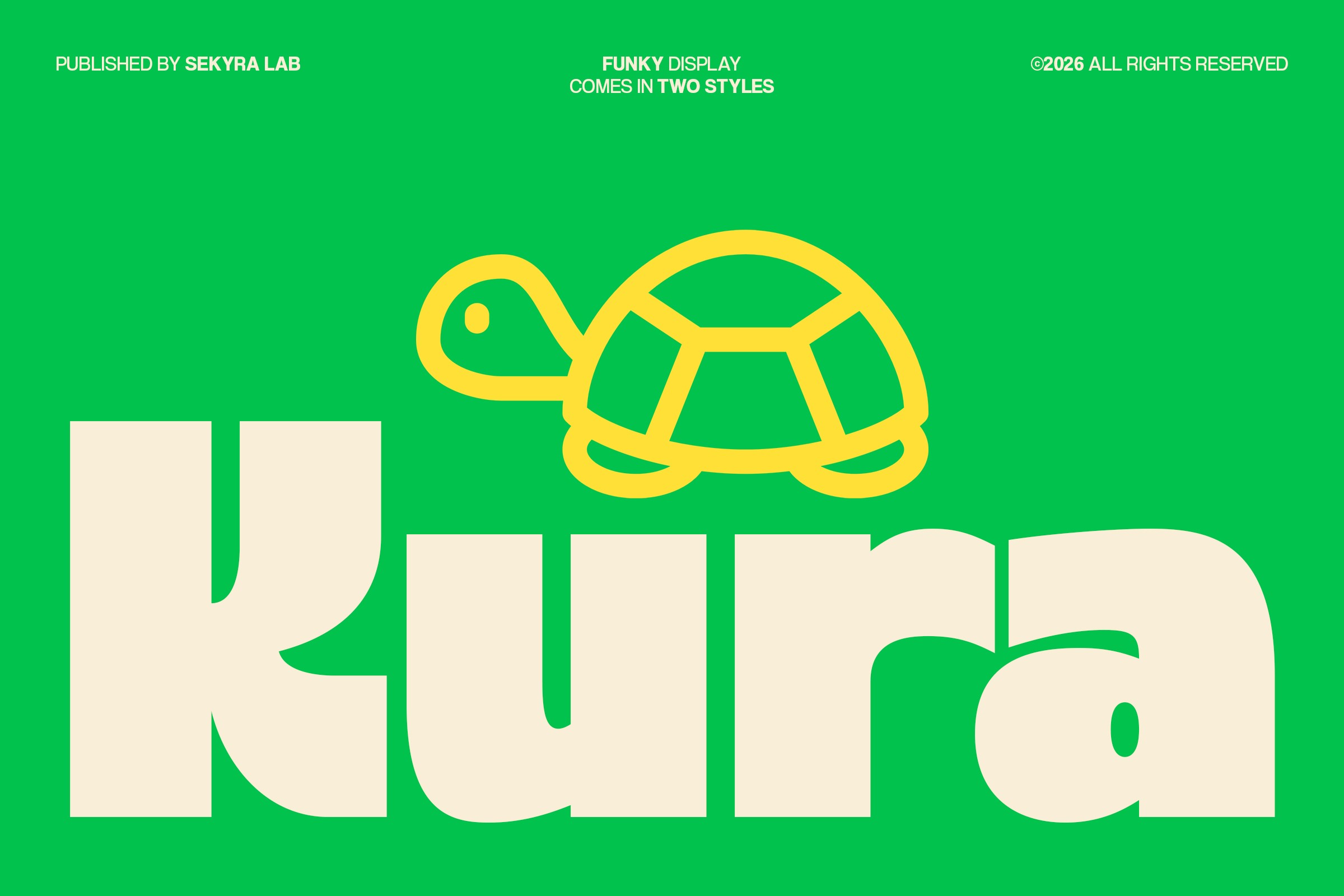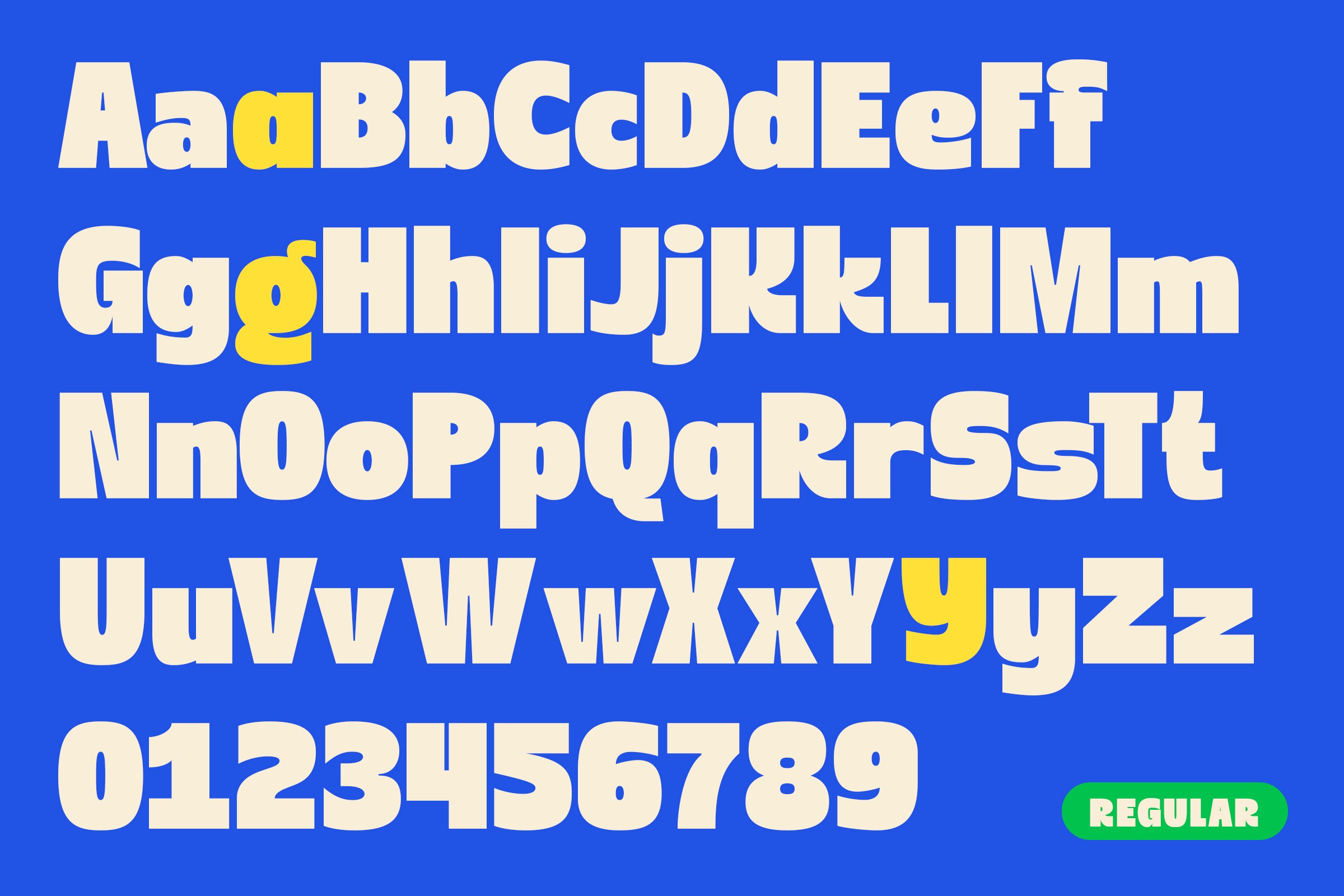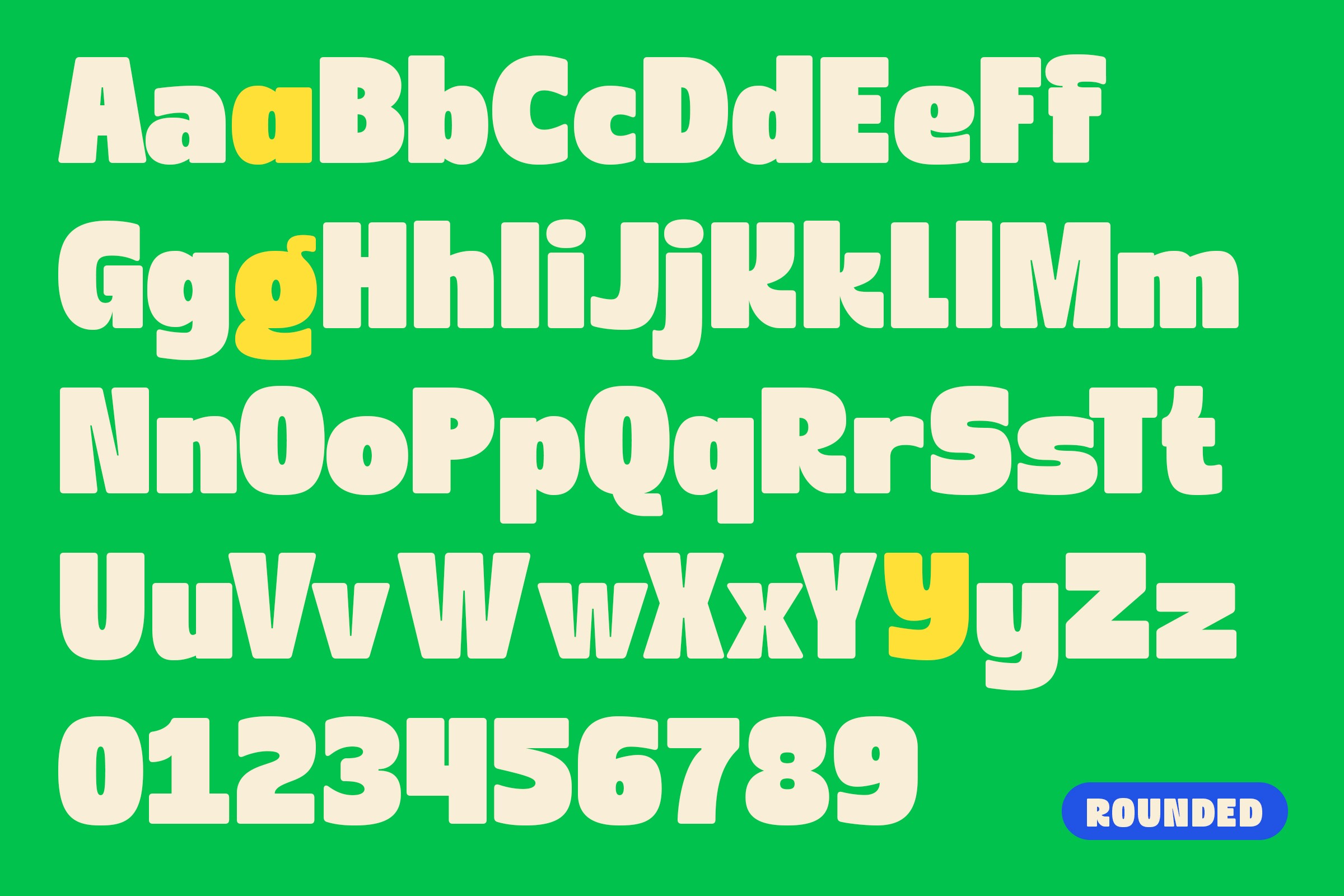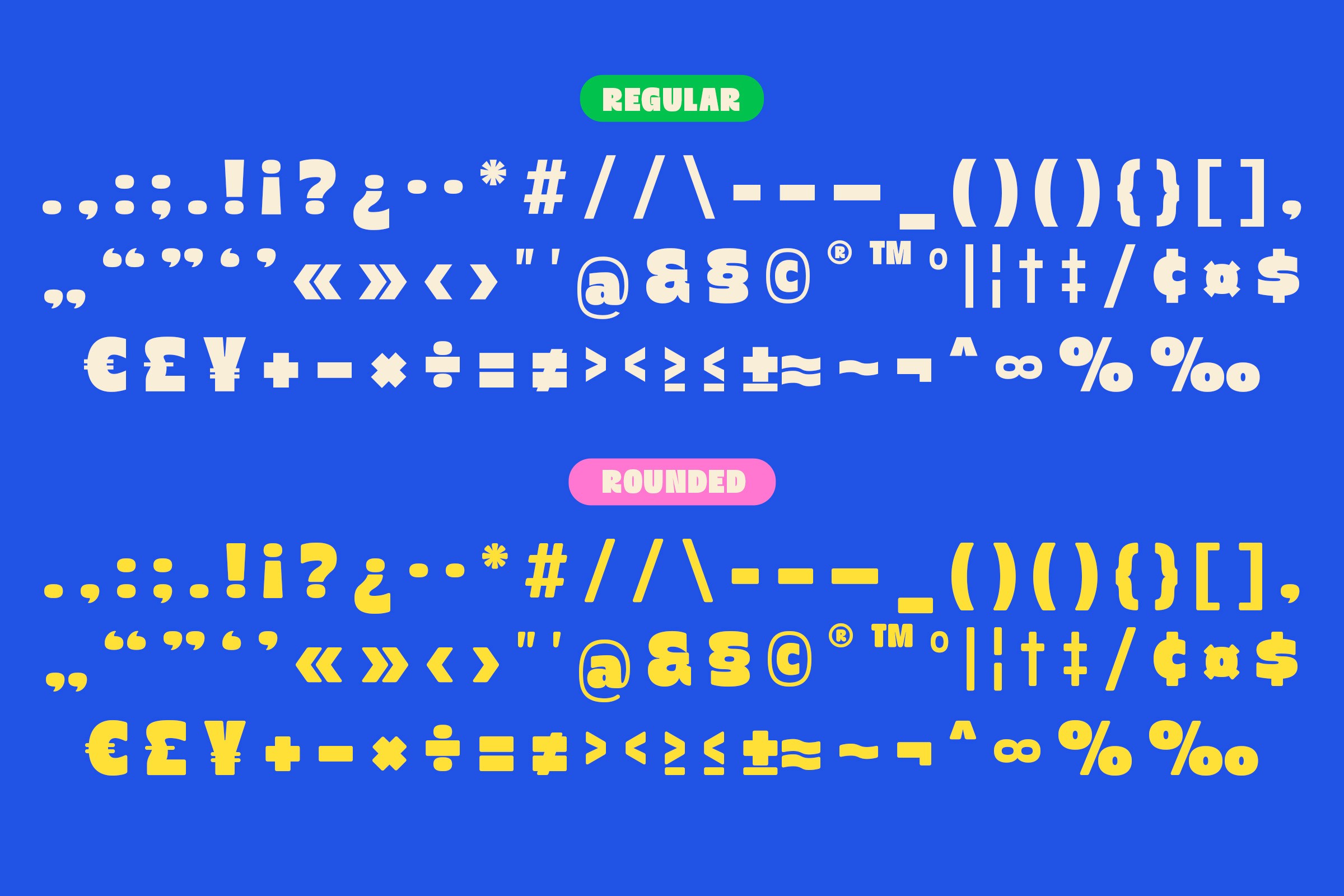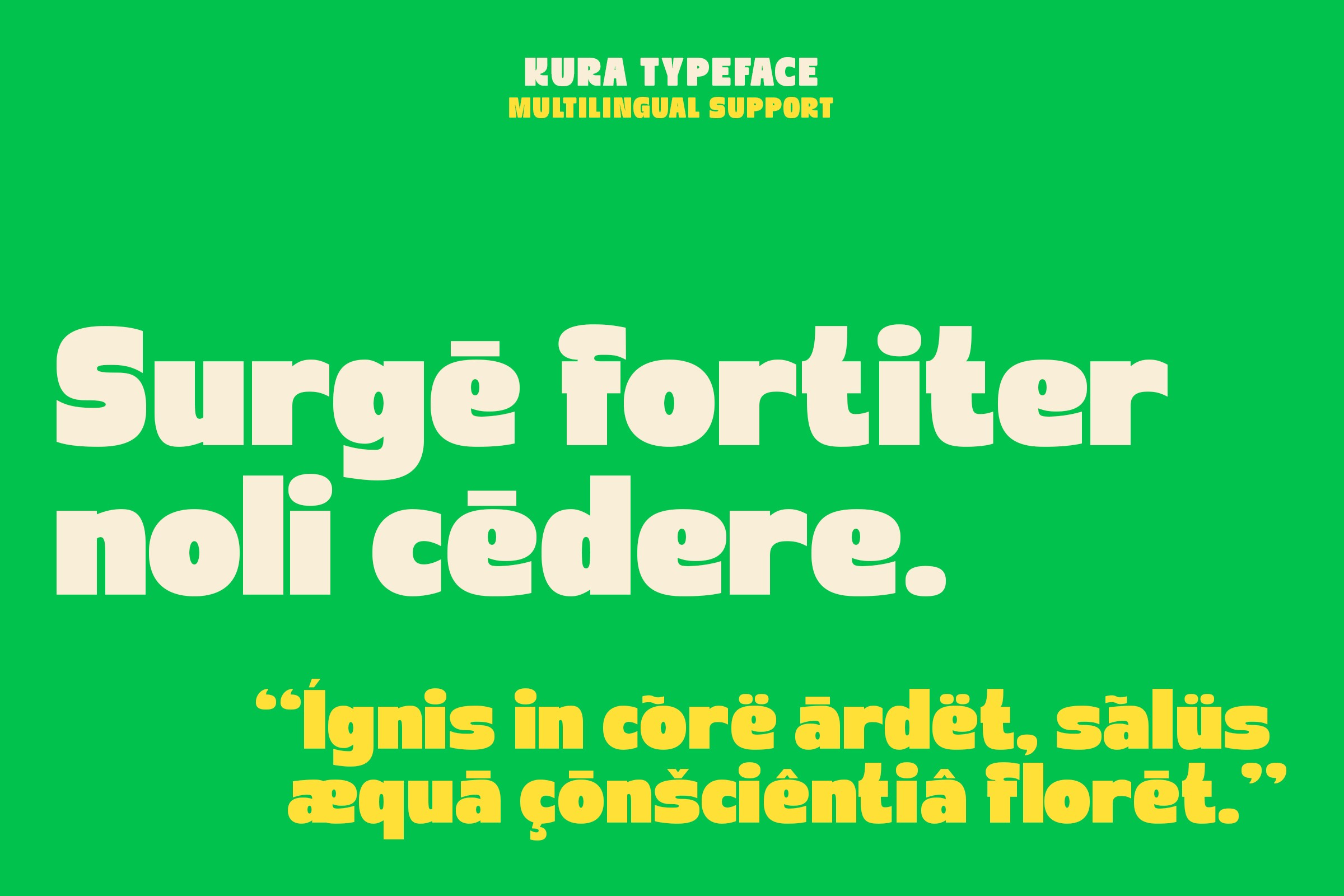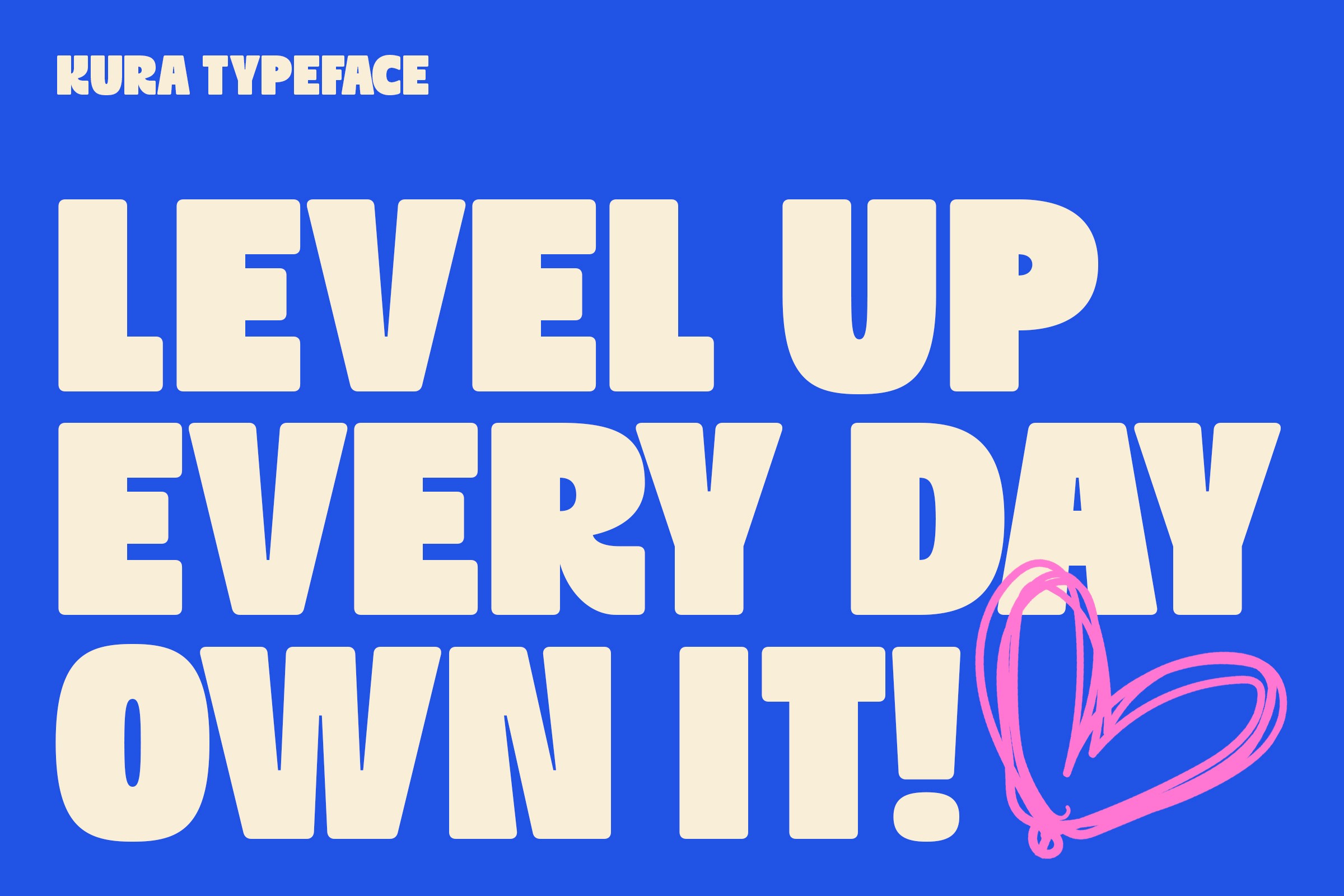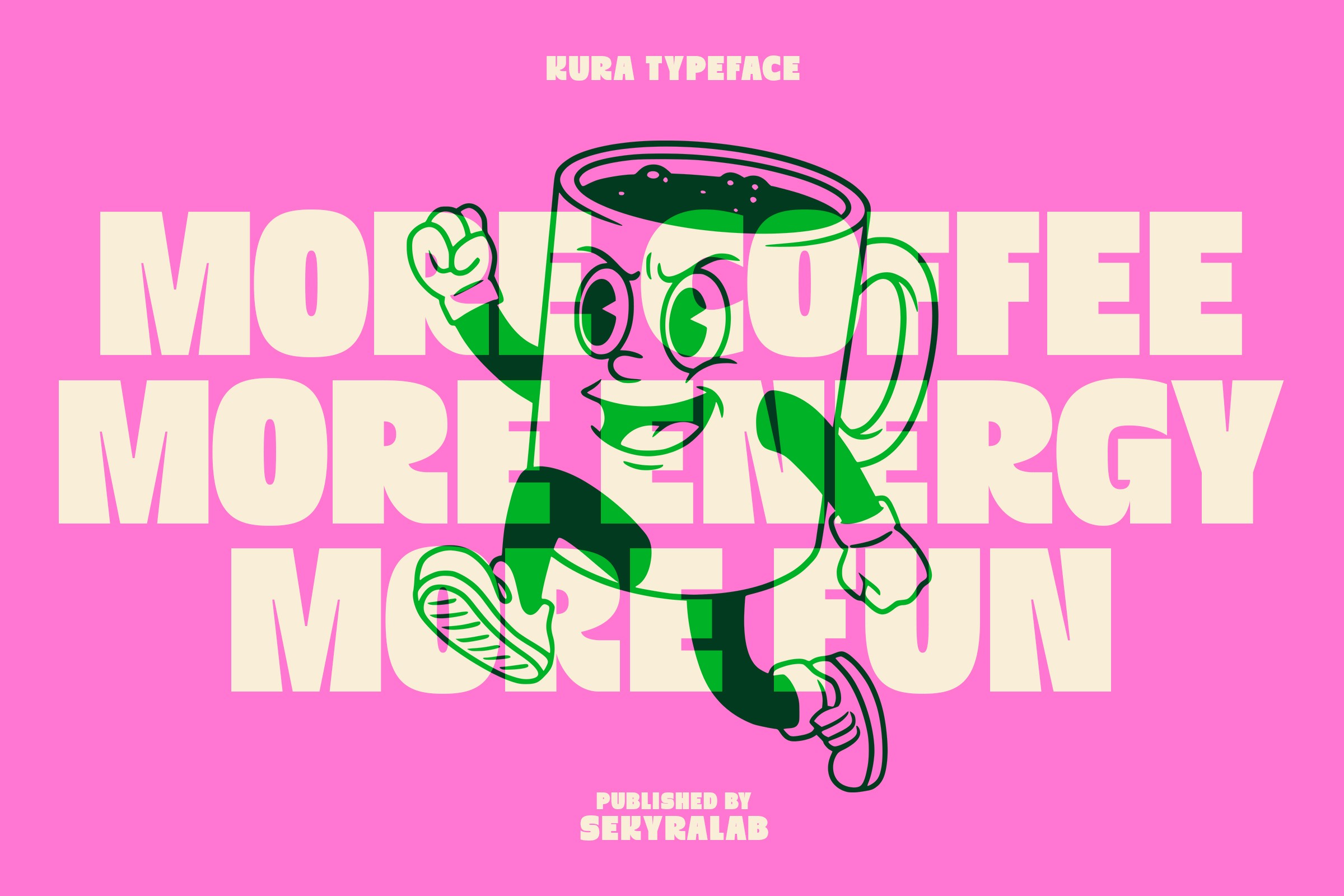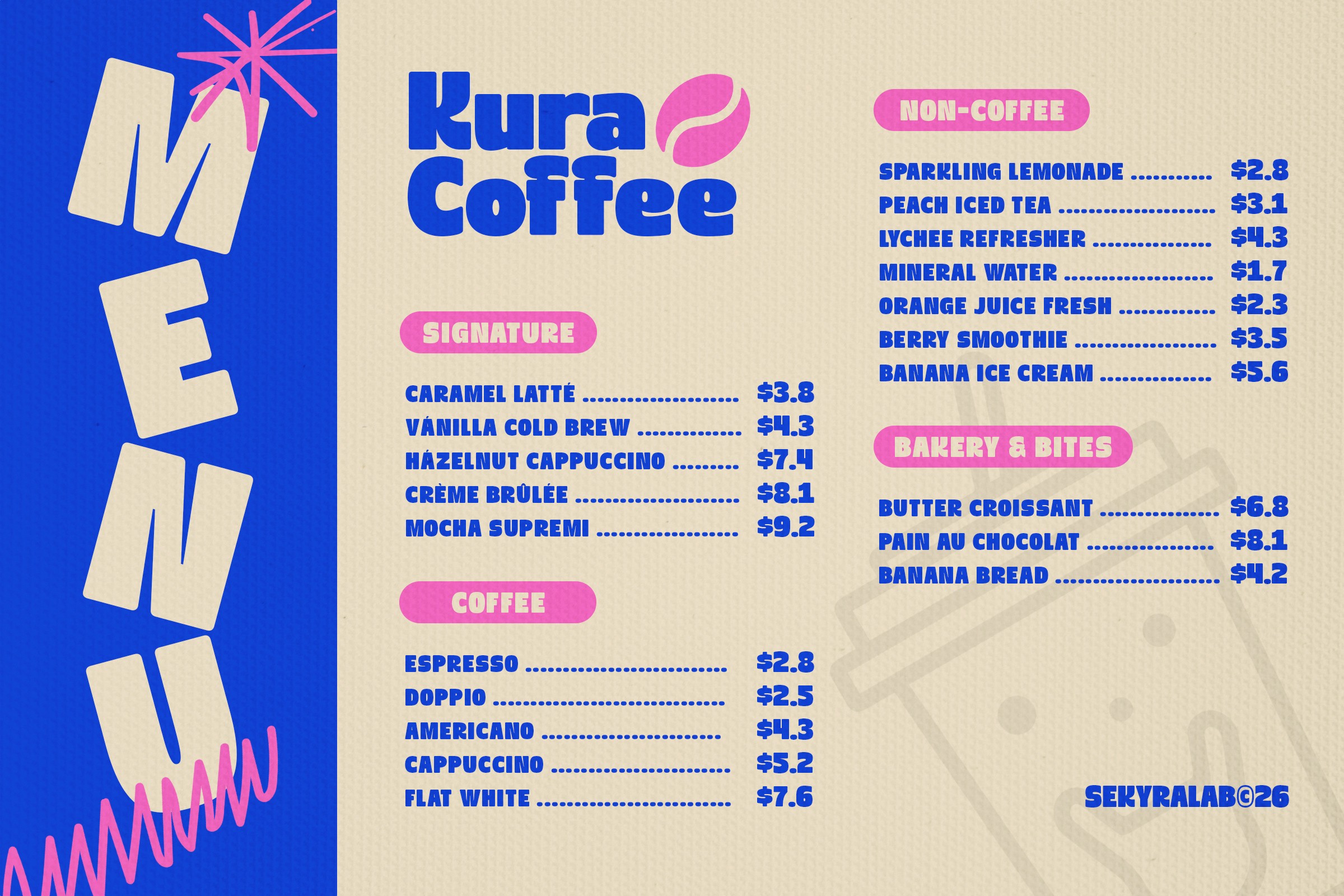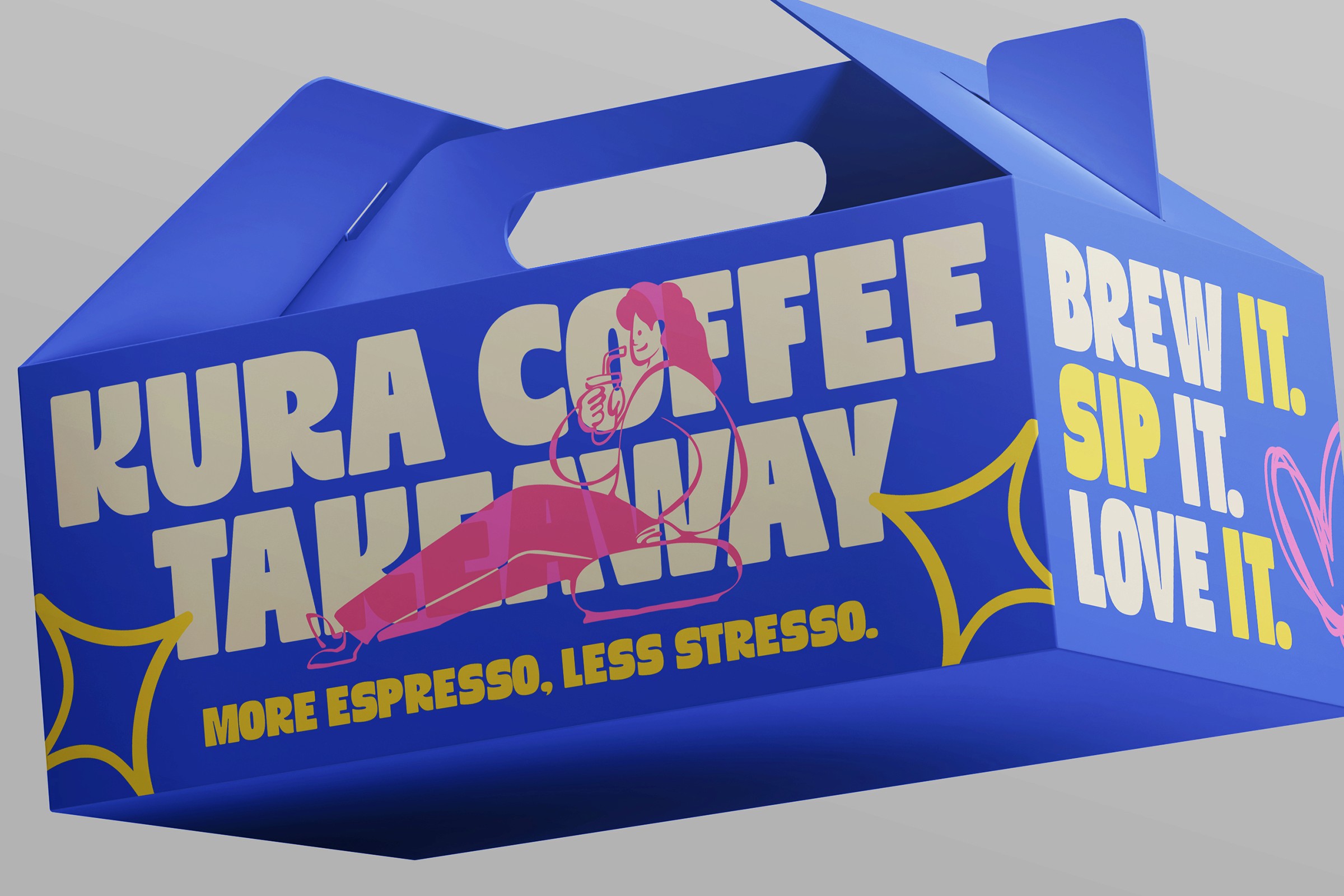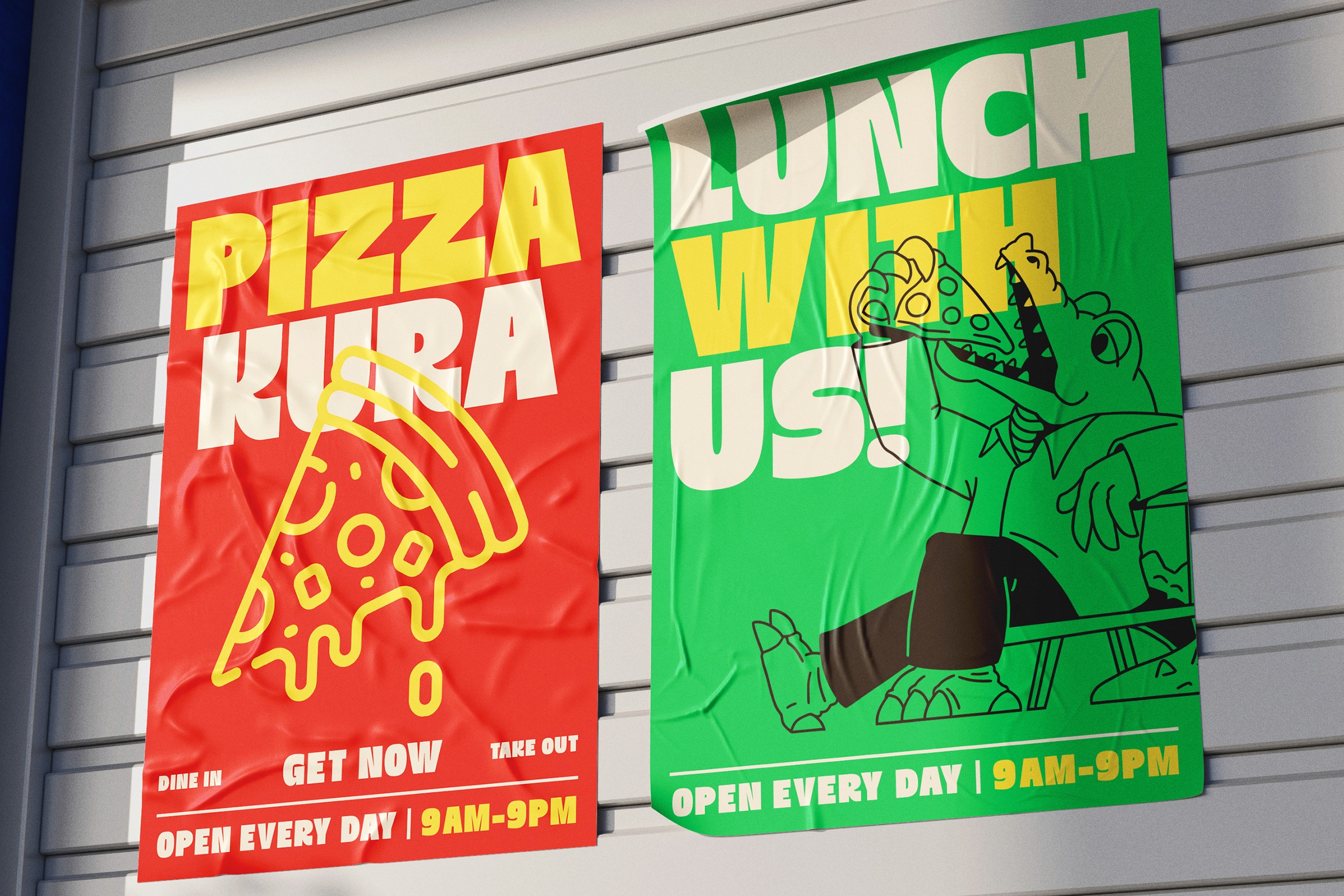
Kura Font
Type
Playful Display
Styles
2 Styles
Release
2026
Kura is a bold, playful display typeface built around soft geometry and friendly proportions. Its chunky forms and smooth curves create a lively rhythm that feels both expressive and approachable.
Key Features
Bold and friendly character
Rounded geometry with playful tone
Strong readability for display use
Expressive yet approachable design
Multilingual support
Styles
Regular
Rounded